Star Trek, The Movies
Warning: If you don’t like or care about Star Trek, I understand. Feel free to skip this.
It all started about two months ago, when the J.J. Abrams Star Trek movie (2009) rose to the top of my NetFlix queue. (I wrote about this movie for using one of my fonts back when it was in theaters.) I’ve become somewhat of a Blu Ray fan and thought this would be a fun movie to watch in that format. I was right. I think I like it even more now than when I first saw it.
One thing led to another and before I knew it, I had purchased the two sets of Star Trek movies on Blu Ray. For some reason, I was never really that interested in watching these on DVD. I tried watching the first one (Star Trek: The Motion Picture) once, but couldn’t get through the first 20 minutes. The picture and sound were just horrible. I think it must have been an early DVD release, the kind where it’s not optimized for wide screen viewing.
I’d seen both Star Trek II: The Wrath of Khan and Star Trek IV: The Voyage Home more than once (both considered among the best of the series). The rest I only saw in the theater, except for Star Trek: Nemesis, which I’d never seen at all.
So, with some trepidation, I subjected myself to a Star Trek movie marathon over the last couple of weeks. It was interesting. The movies were both better and worse than I remembered.
Star Trek: The Motion Picture. This is my least favorite of the entire series. It was a disappointment when I saw it in the theater in 1979. Slow, overblown, ridiculous and terrible in so many ways. You get the feeling that the special “V’GER” effects were expected to carry the movie by themselves, but it just looks like self-indulgent nonsense, and adds little to the story. If anything, this movie was worse than I remembered. The titles are dull and feature that goofy Star Trek Movie font. I didn’t like then, and I don’t like now.
Star Trek II: The Wrath of Khan. Considered by most to be the best Star Trek movie ever. I don’t really disagree with that, but I don’t think it has aged well. It was one of the earliest movies to feature computer graphics, and it looks it. The whole production feels kind of like a disco nightmare, but the chemistry of the characters and the story make it really entertaining.
Star Trek III: The Search for Spock. Better then I remembered. Very cheesy special effects and preposterous story. Worth watching just to see Kirk and friends blow up the Enterprise and steal a Klingon ship.
Star Trek IV: The Voyage Home. Cool because they still have the Klingon ship and—even better—take it back in time to the 1986 San Francisco. Funniest of all the Star Trek movies, but, again, the story is a little preposterous. Getting a little repetitious: Big mysterious thing threatens Earth, just like the first movie.
Star Trek V: The Final Frontier. On second thought, maybe this is my least favorite. Most preposterous story of all, but it looks better than any of the previous films. The center of the galaxy is much smaller than I expected. Silliest and most forgettable of the series.
Star Trek VI: The Undiscovered Country. Better than I remembered. The story is not bad: The incident that leads to peace with the Klingons. Some nice zero-gravity effects. A little too much Shakespeare from the Klingon played by Christopher Plummer.
Star Trek: Generations. This is not considered one of the best, but I like it. The production values are higher than the earlier films. I also think the Next Generation cast are, on average better, actors than the earlier cast. At least Stewart is. I love the scene in which, after narrowly winning a battle with a Klingon ship, they are forced to crash land the Enterprise. And then the planet blows up, killing everyone. This can only mean another time travel plot. This one also has the most tastefully-done titles in the series, in spite of being set in ITC Benguiat.
Star Trek: First Contact. This is generally considered to be the best of the Next Generation movies, but it was not as good as I remembered. Good: It has The Borg. Bad: More time travel, and James Cromwell as the guy who invents “warp drive”. I usually like Cromwell, but he seems mis-cast in this. Titles use Benguiat again, but look terrible.
Star Trek: Insurrection. Last one I saw in the theaters before the re-boot. I couldn’t have told you what it was about until seeing it again. Not very good, but not really terrible either. Would have made a good two-part episode on the TV show. Worst titles of the series—very cheap looking.
Star Trek: Nemesis. This is the one I’d never seen before. It is supposed to be one of the worst of the series, so I expected not to like it. But I actually kind of liked it. Some of it is goofy, but that’s par for the course in the Star Trek universe. The battle at the end was pretty good. The dune buggy scenes were inexplicable, but fun. The titles were set in Exocet, I think. Seemed very dated.
And
Seen in front of my house in Saint Paul, Minnesota, on June 8, 2011.
Clock
Seen in downtown Seattle, June 18, 2011. At 1:18, I assume.
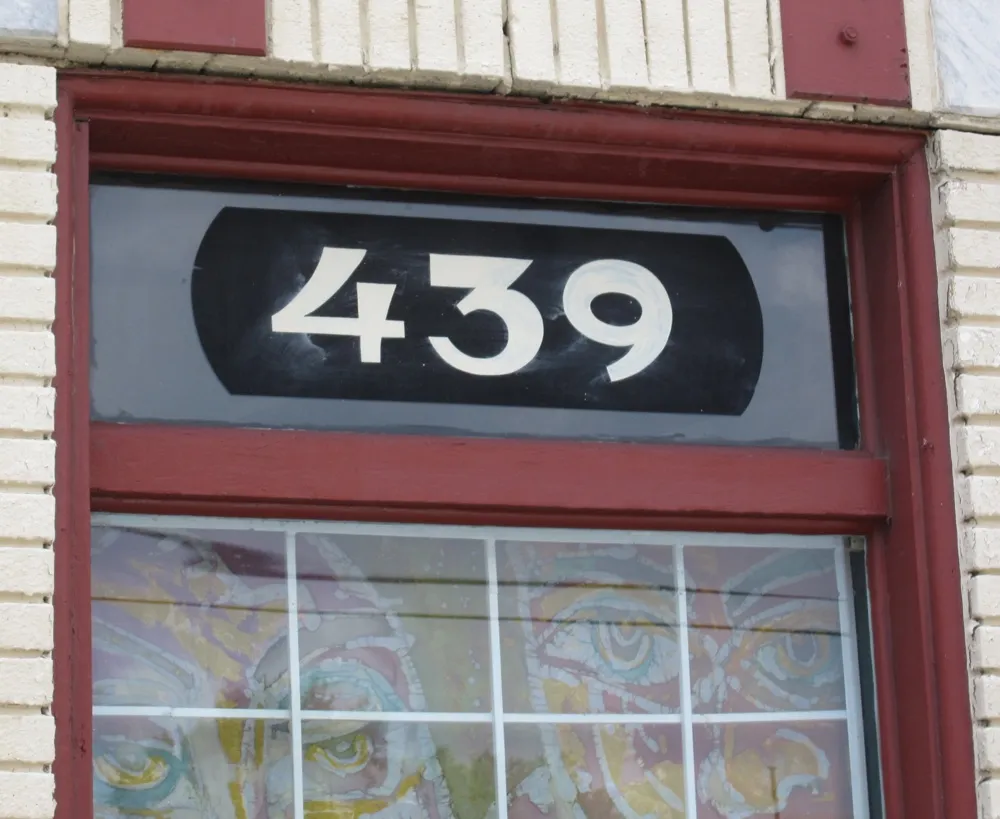
Hotpoint
Seen in Brattleboro, Vermont, on July 12, 2011.
Nice Numbers
I saw this while on a brain-frying four-hour hike around Atlanta with Paul Shaw to help him scout locations for his upcoming TypeCon Type Tour. Photo taken July 15, 2009.
Nash Metropolitan
Seen in Saint Paul, Minnesota, on June 20, 2009.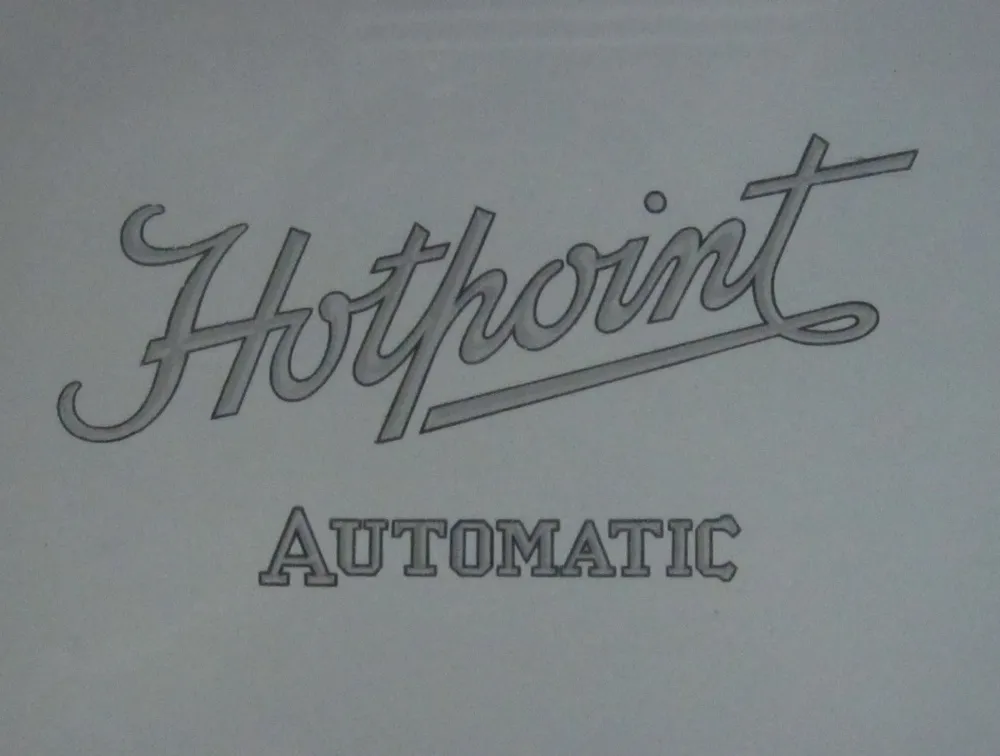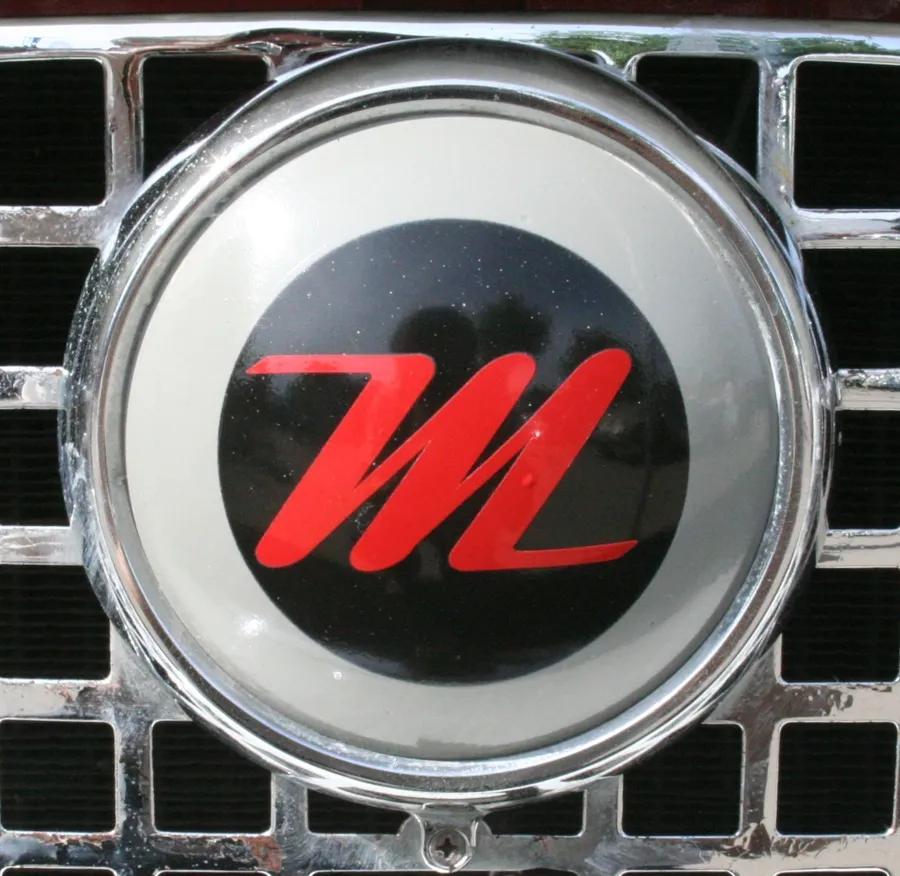